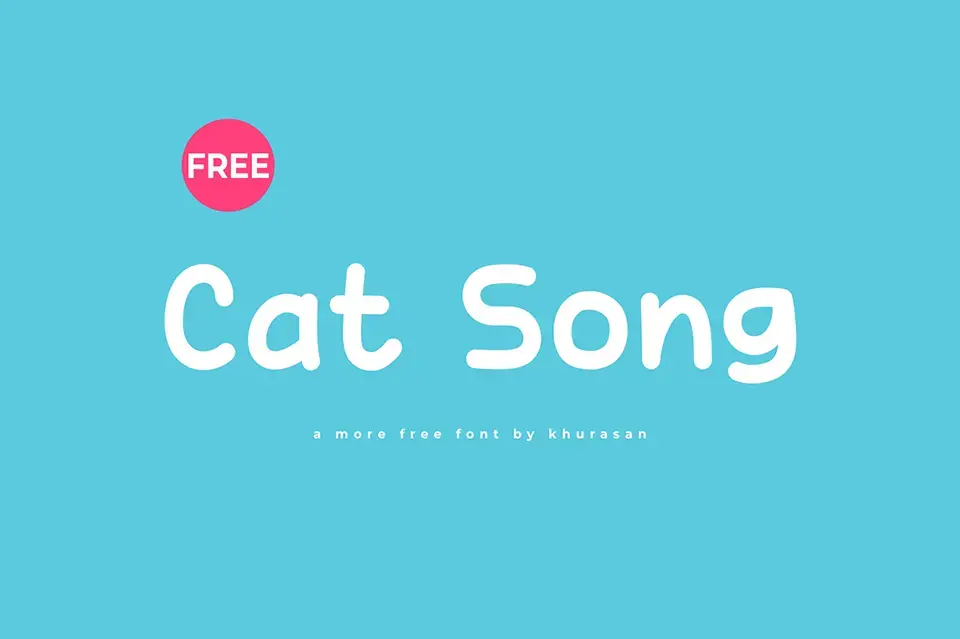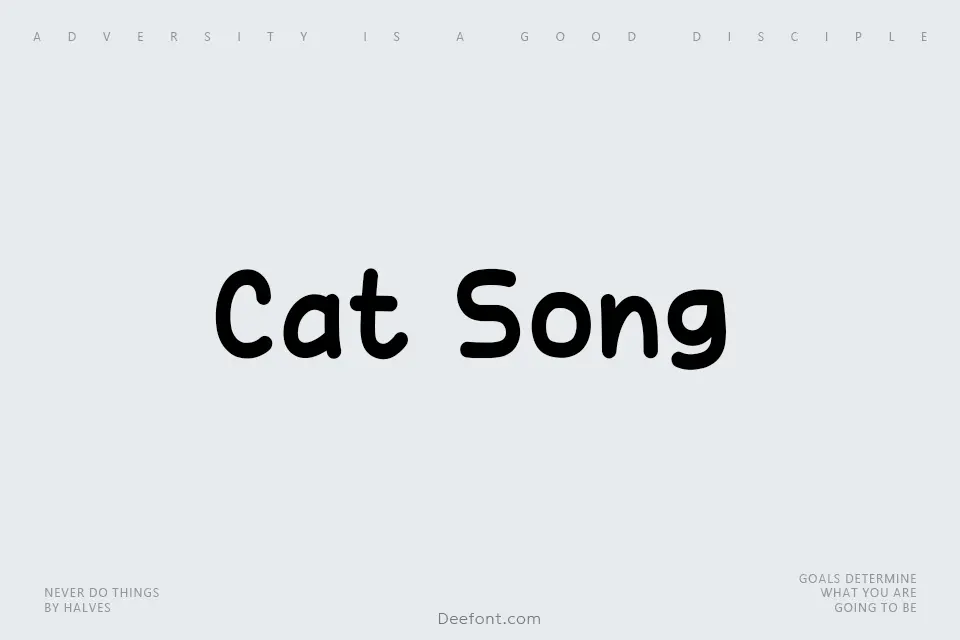
Cat Song Font
Cat Song is an enchanting handwritten script font featuring organic curves and playful personality that captivates with its warmth and approachability. The slightly irregular letterforms evoke a human touch with wonderful fluidity and charm, making it versatile for numerous creative applications. This font shines in display contexts such as greeting cards, wedding invitations, children's products, and branding materials. Its adaptability allows seamless integration into designs requiring personality and elegance, from whimsical event materials to refined packaging solutions.